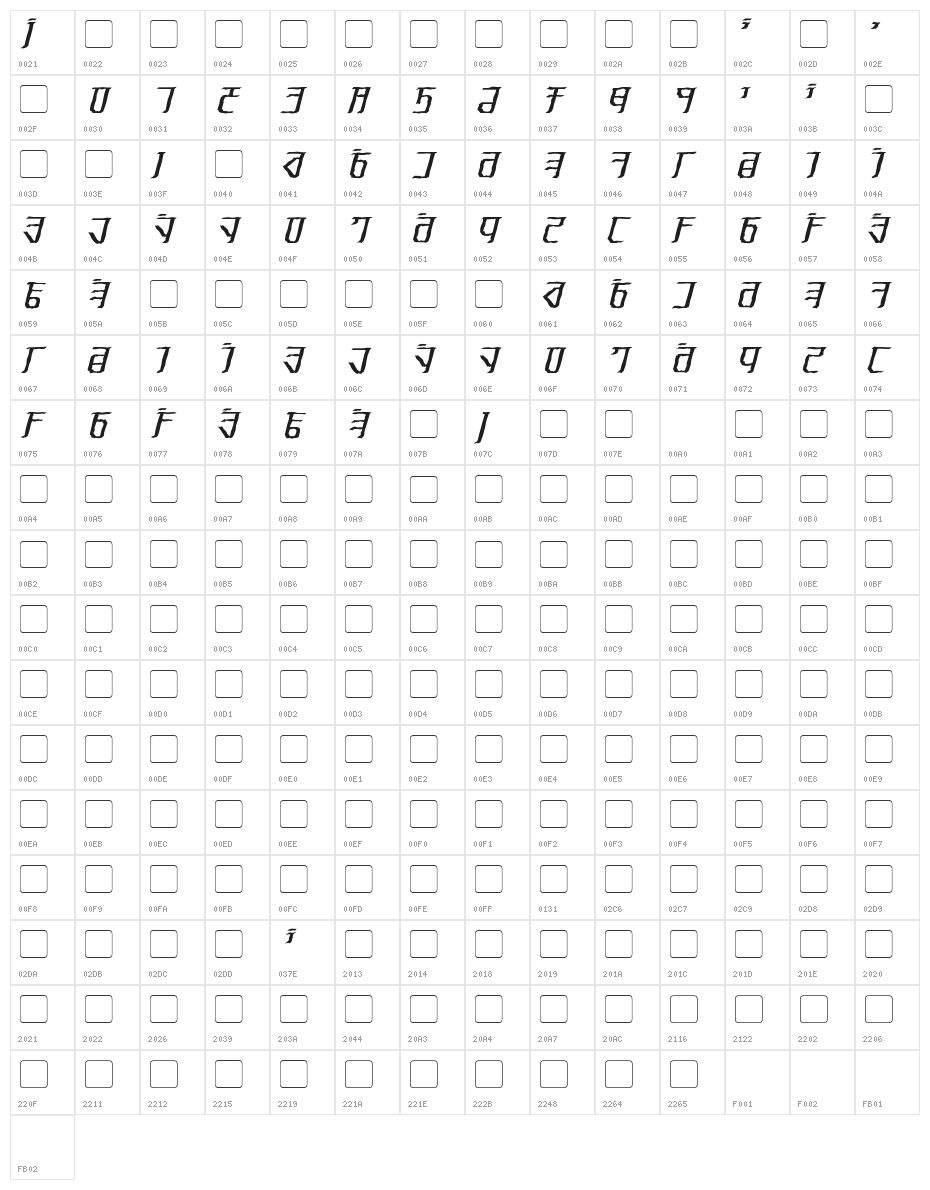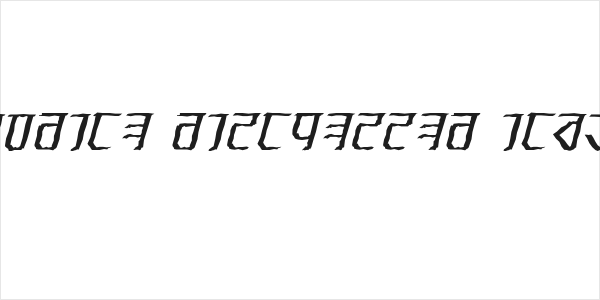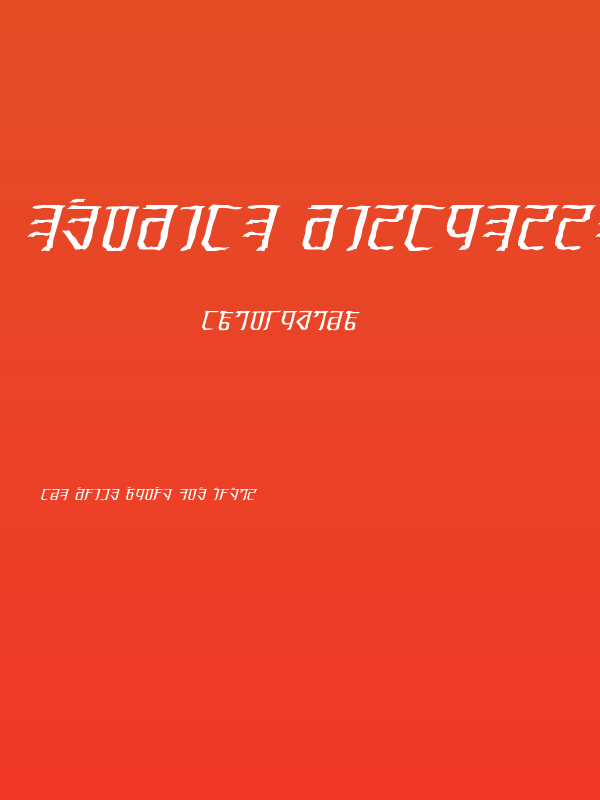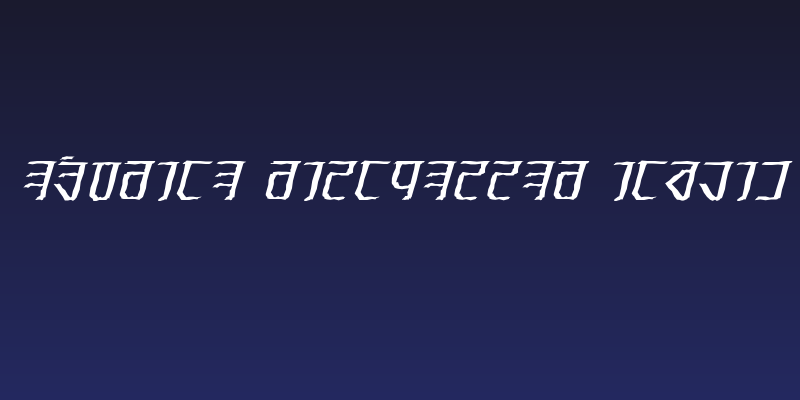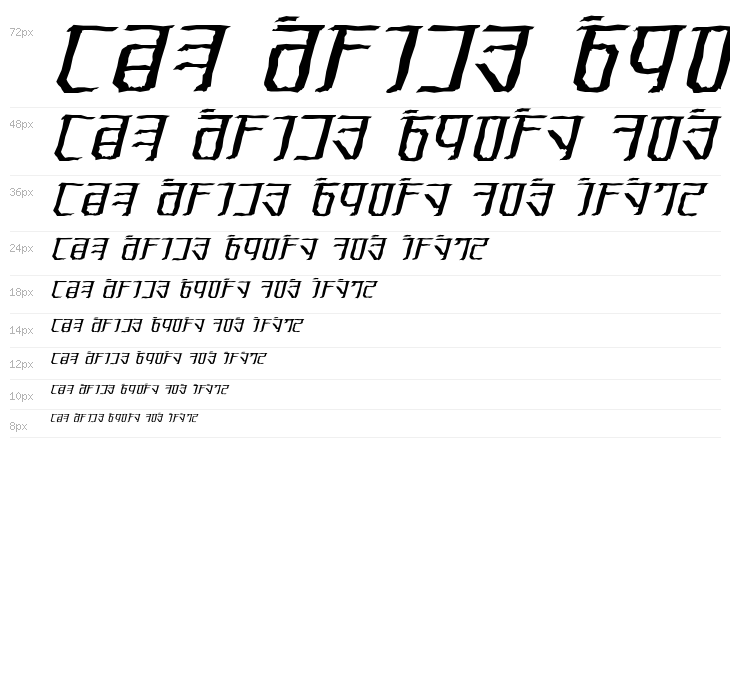
Exodite Distressed Italic Font
Exodite Distressed Italic Description
This font features a distressed, italic style that exudes a rugged and edgy aesthetic. The characters are sharply angled with a dynamic slant, giving a sense of movement and urgency. The distressed texture adds a worn, vintage feel, making it ideal for projects that require a bold, impactful look. The uppercase and lowercase letters maintain a consistent style, with jagged edges and uneven strokes that enhance its unique character. The numbers and special characters follow the same design principles, ensuring a cohesive appearance across all text elements.